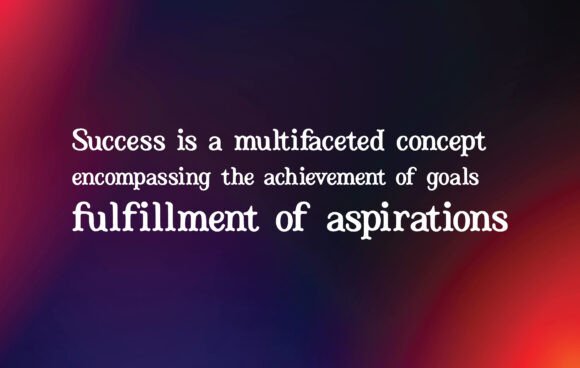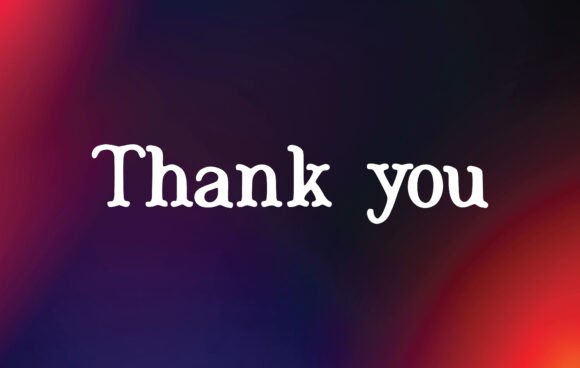
Carmelo Font: Elevate Your Creative Projects with Elegance and Sophistication
In the world of typography, a font can make or break the visual appeal of a design project. For designers and crafters looking to add a touch of elegance and sophistication to their work, Carmelo Font is an excellent choice. This lovely and beautiful serif font has the potential to take your creative ideas to the highest level, making it perfect for creating eye-catching logos, branding, and quotes.
The Characteristics of Carmelo Font
Carmelo Font is a serif font that exudes a sense of refinement and luxury. Its classic design features subtle flourishes and intricate details that give it a unique and distinctive look. The font’s serif elements add a touch of sophistication, making it ideal for projects that require a high level of elegance and poise.
One of the standout features of Carmelo Font is its versatility. It can be used for a wide range of design projects, from logos and branding to quotes and posters. The font’s clear and readable design ensures that it remains legible even at small sizes, making it perfect for use in body text or captions.
Why Choose Carmelo Font?
So, why should designers and crafters choose Carmelo Font for their projects? Here are just a few reasons:
- Elegance and Sophistication: Carmelo Font’s classic design and serif elements give it a sophisticated and elegant look that’s perfect for high-end design projects.
- Versatility: The font’s versatility makes it suitable for a wide range of design projects, from logos and branding to quotes and posters.
- Readability: Carmelo Font’s clear and readable design ensures that it remains legible even at small sizes, making it perfect for use in body text or captions.
- Uniqueness: The font’s subtle flourishes and intricate details give it a unique and distinctive look that sets it apart from other serif fonts.
Using Carmelo Font in Design Projects
So, how can designers and crafters use Carmelo Font in their design projects? Here are a few ideas:
- Logos and Branding: Use Carmelo Font to create eye-catching logos and branding materials that exude elegance and sophistication.
- Quotes and Posters: The font’s classic design and serif elements make it perfect for use in quotes and posters that require a touch of elegance and poise.
- Body Text: Carmelo Font’s clear and readable design makes it suitable for use in body text, ensuring that your message is communicated clearly and effectively.
Tips for Getting the Most Out of Carmelo Font
To get the most out of Carmelo Font, here are a few tips:
- Experiment with Font Sizes: Carmelo Font’s clear and readable design ensures that it remains legible even at small sizes, so don’t be afraid to experiment with different font sizes to find the one that works best for your project.
- Pair with Other Fonts: Carmelo Font pairs well with other fonts, so try combining it with sans-serif fonts or script fonts to create a unique and visually appealing design.
- Use it for Headings and Titles: The font’s elegant design and serif elements make it perfect for use in headings and titles, where it can add a touch of sophistication and elegance to your design.
In conclusion, Carmelo Font is a beautiful and elegant serif font that’s perfect for designers and crafters looking to add a touch of sophistication and elegance to their design projects. Its versatility, readability, and unique design make it an excellent choice for a wide range of projects, from logos and branding to quotes and posters. So why not give Carmelo Font a try and see how it can elevate your creative projects to the highest level?